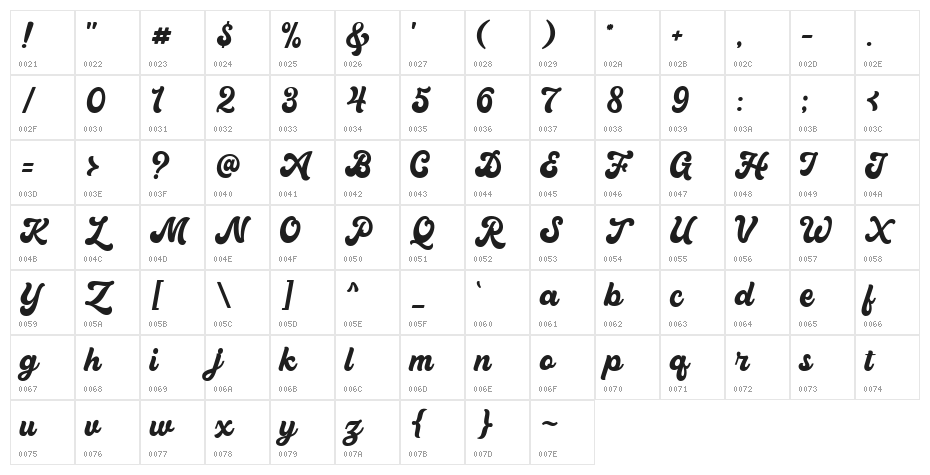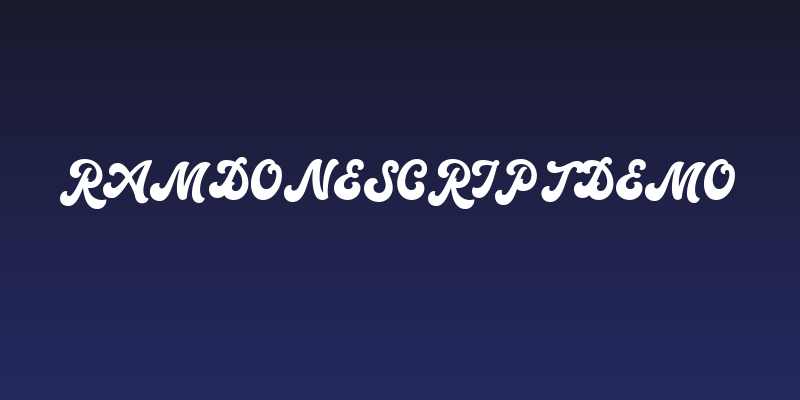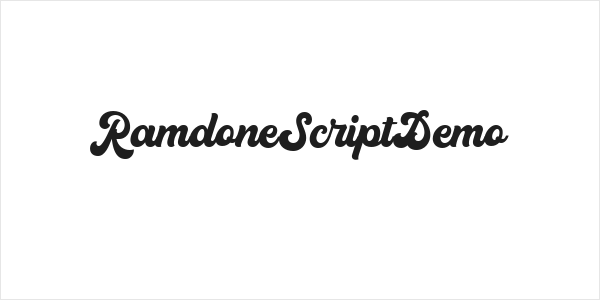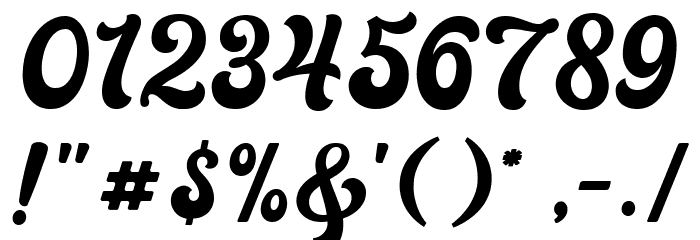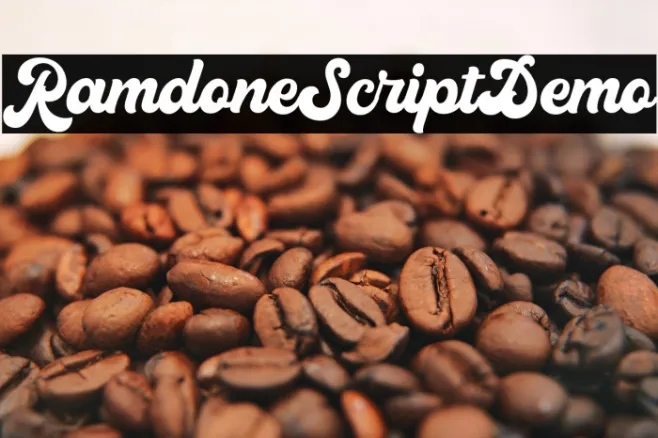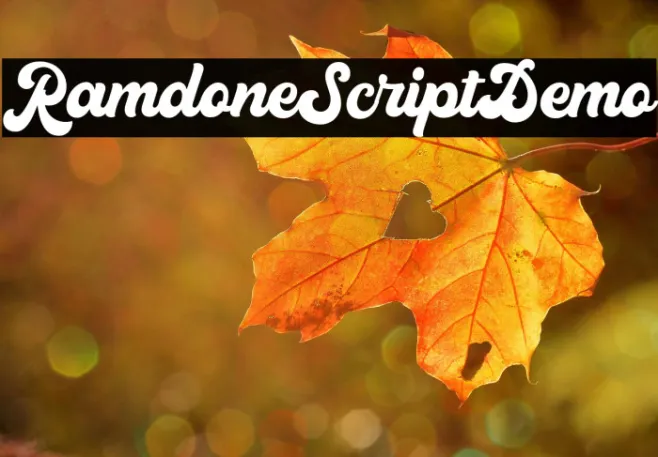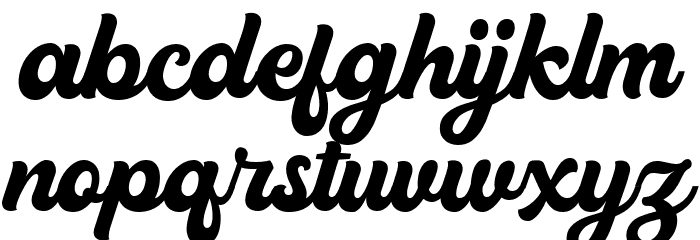
RamdoneScriptDemo Font
RamdoneScriptDemo Description
This font exudes a playful and energetic vibe with its bold, cursive script style. The letters are interconnected, creating a fluid and dynamic appearance. The uppercase characters maintain a consistent height, while the lowercase letters have a slightly exaggerated loop, adding to the font's whimsical charm. The numbers and special characters follow the same bold and flowing style, ensuring uniformity across all elements. This font's thick strokes and rounded edges give it a friendly and approachable feel, making it ideal for projects that require a touch of personality and flair.
| Proposed Projects | Ideal for greeting cards, playful branding, children's book titles, and creative posters. |